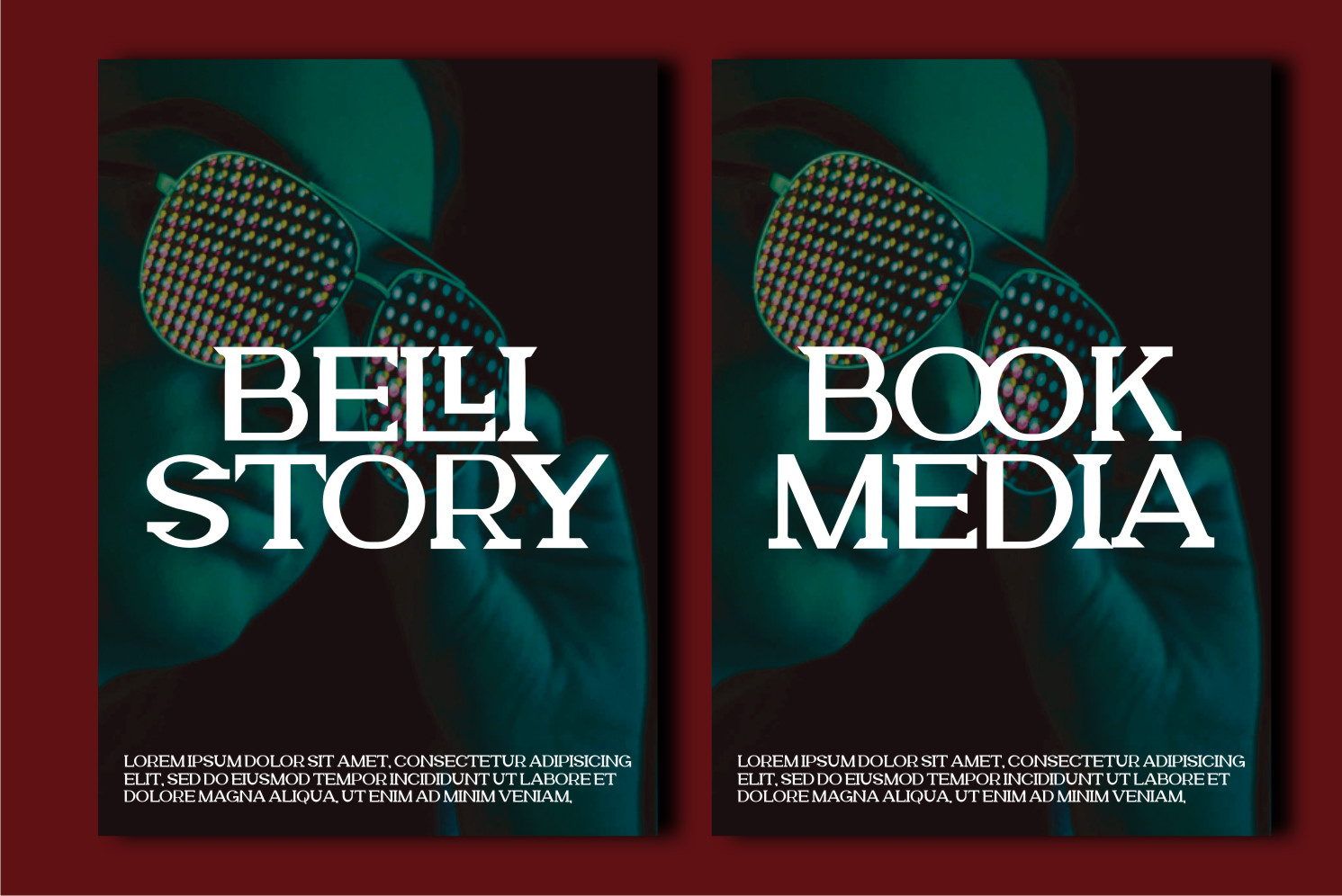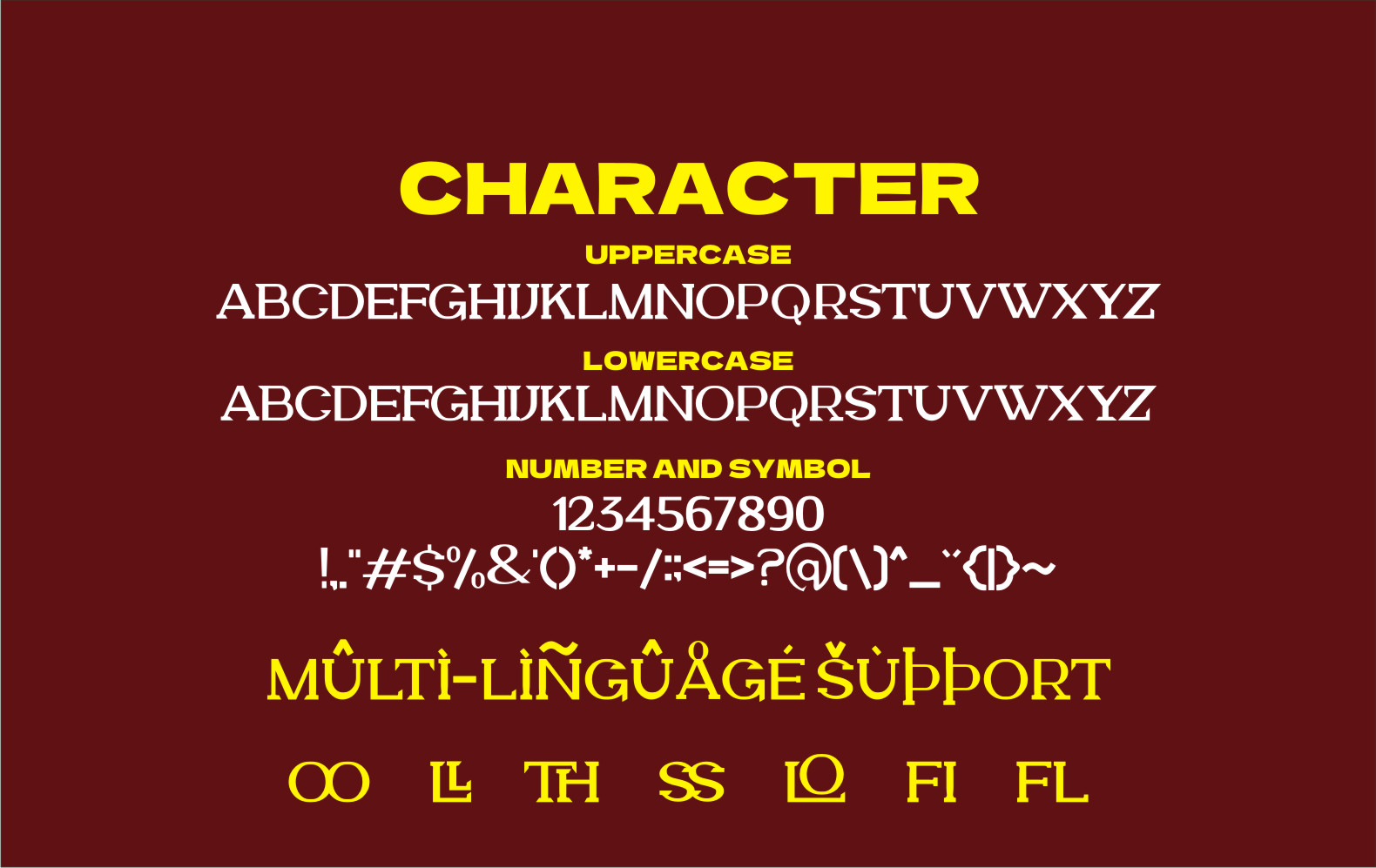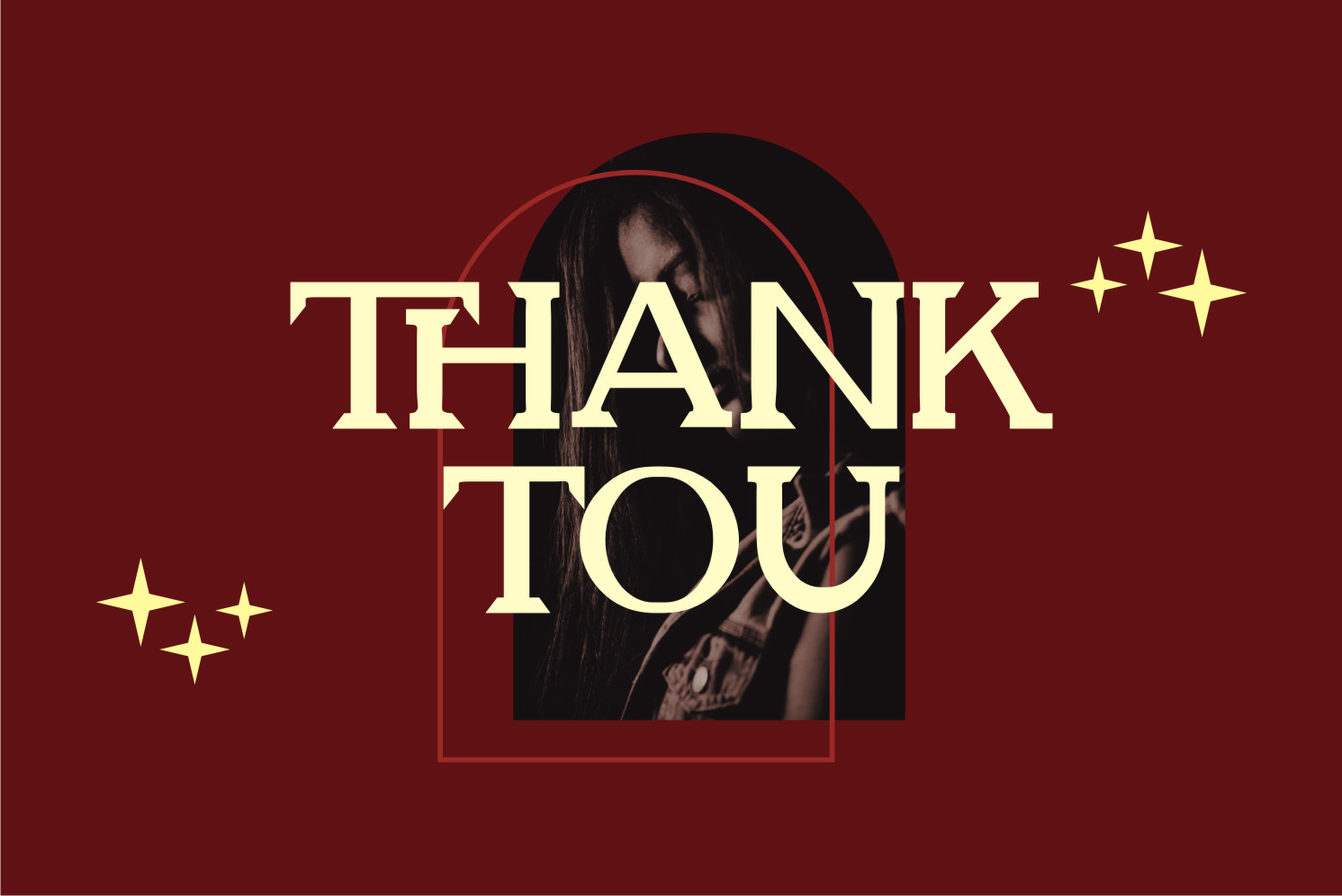
Olltha Font
Olltha Font is an authentic, bold and luxurious serif font. Whatever the topic, this font will be a wonderful asset to your font library, as it has the potential to enhance any creation.